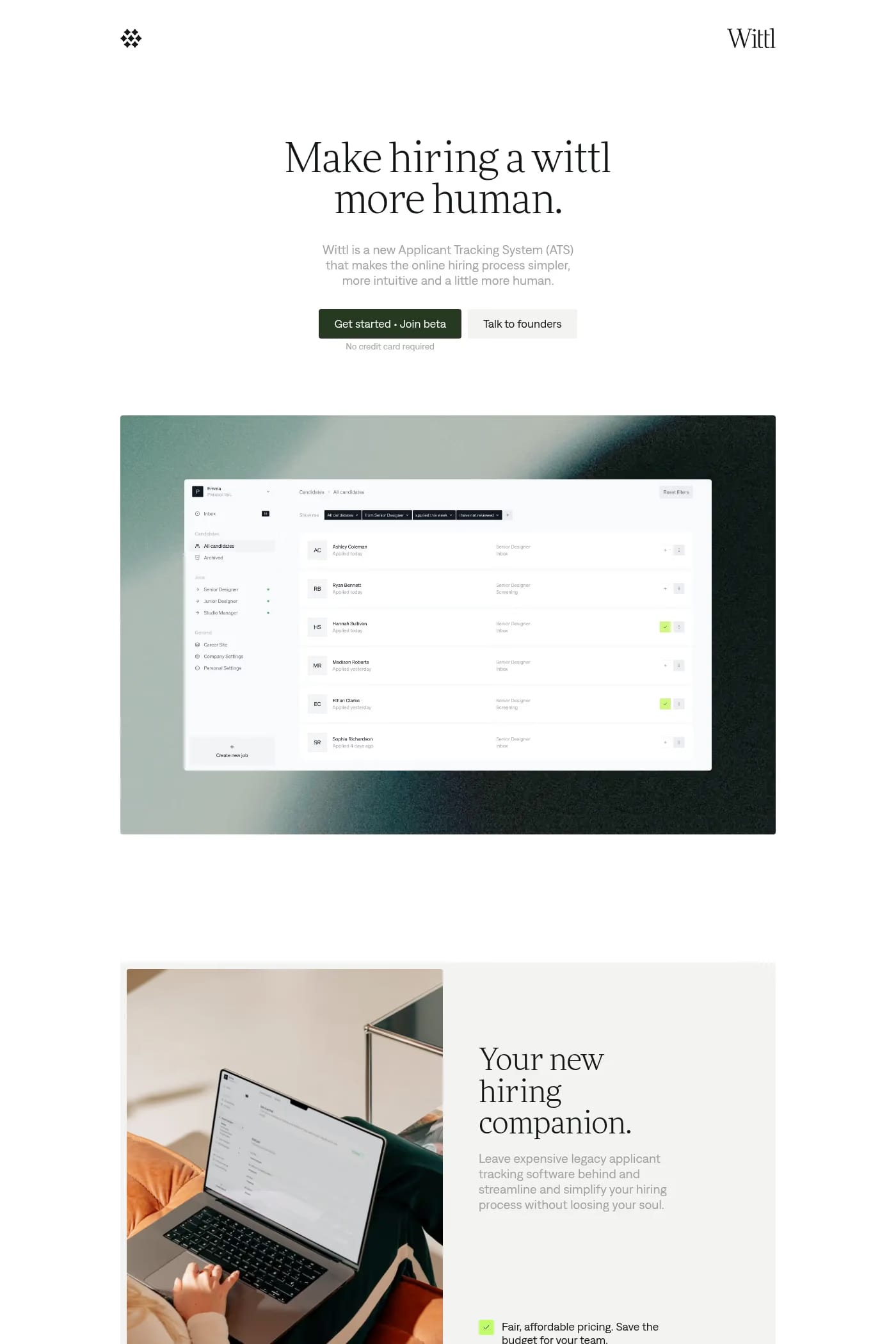
FF More is a serif typeface from FontFont.
These days, it’s easy to find typefaces with multiple widths and weights, but they’re nearly all sans serifs. Large serif families are much less common. The 30-style FF More fills this need.